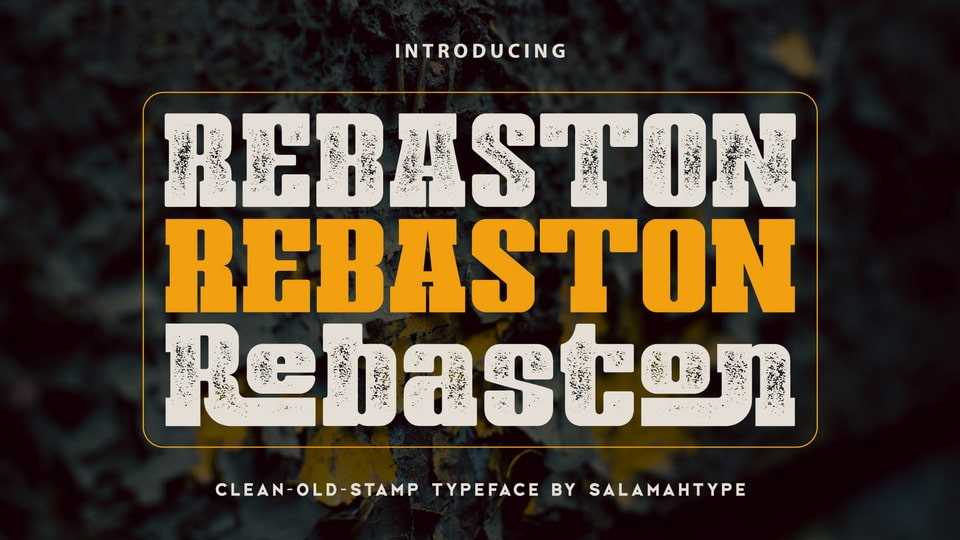
Download Rebaston font, a display serif typeface with 40 ligatures and comes with a stamp style, which makes it perfect for developing logos and meeting a variety of branding needs.